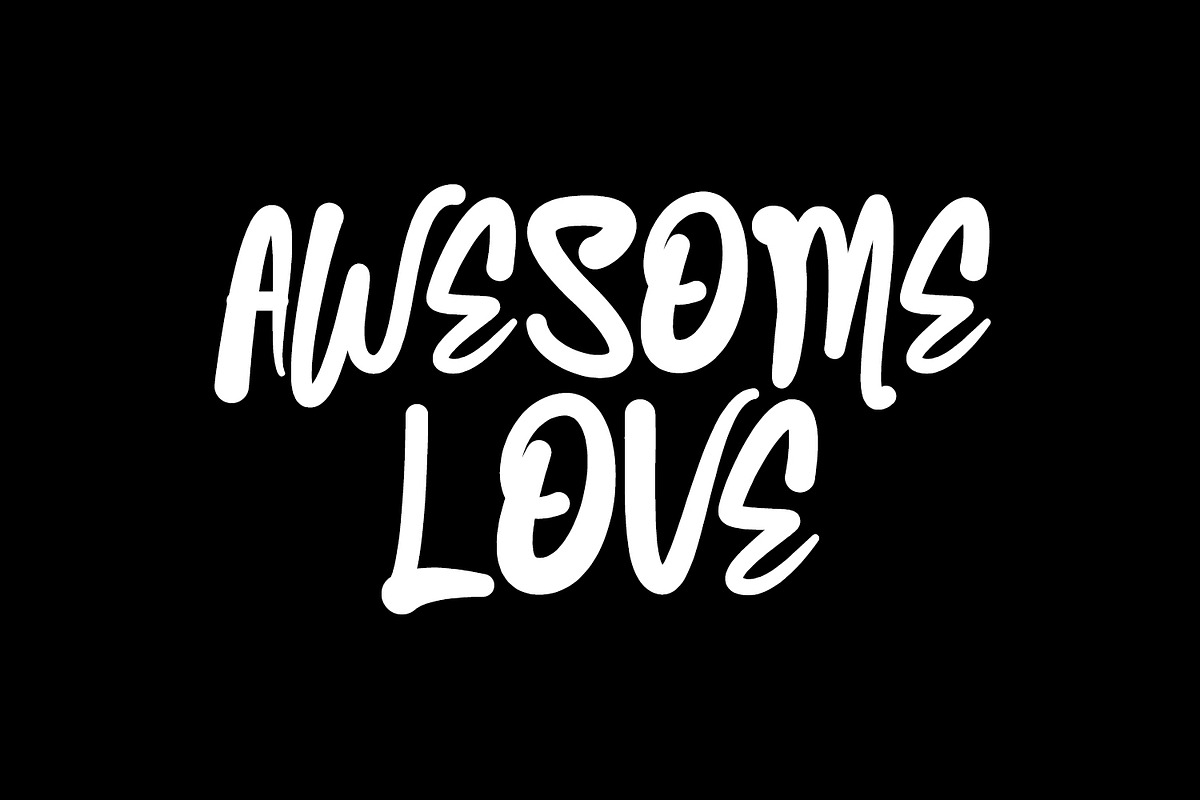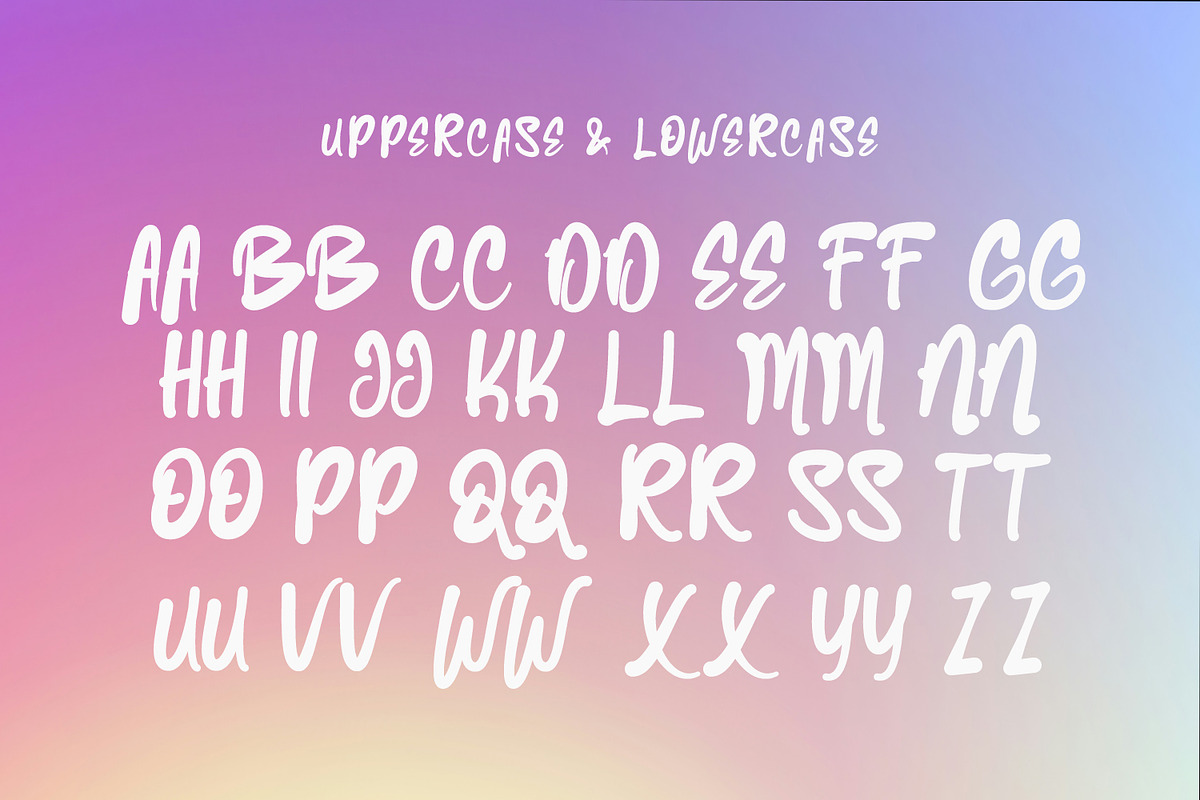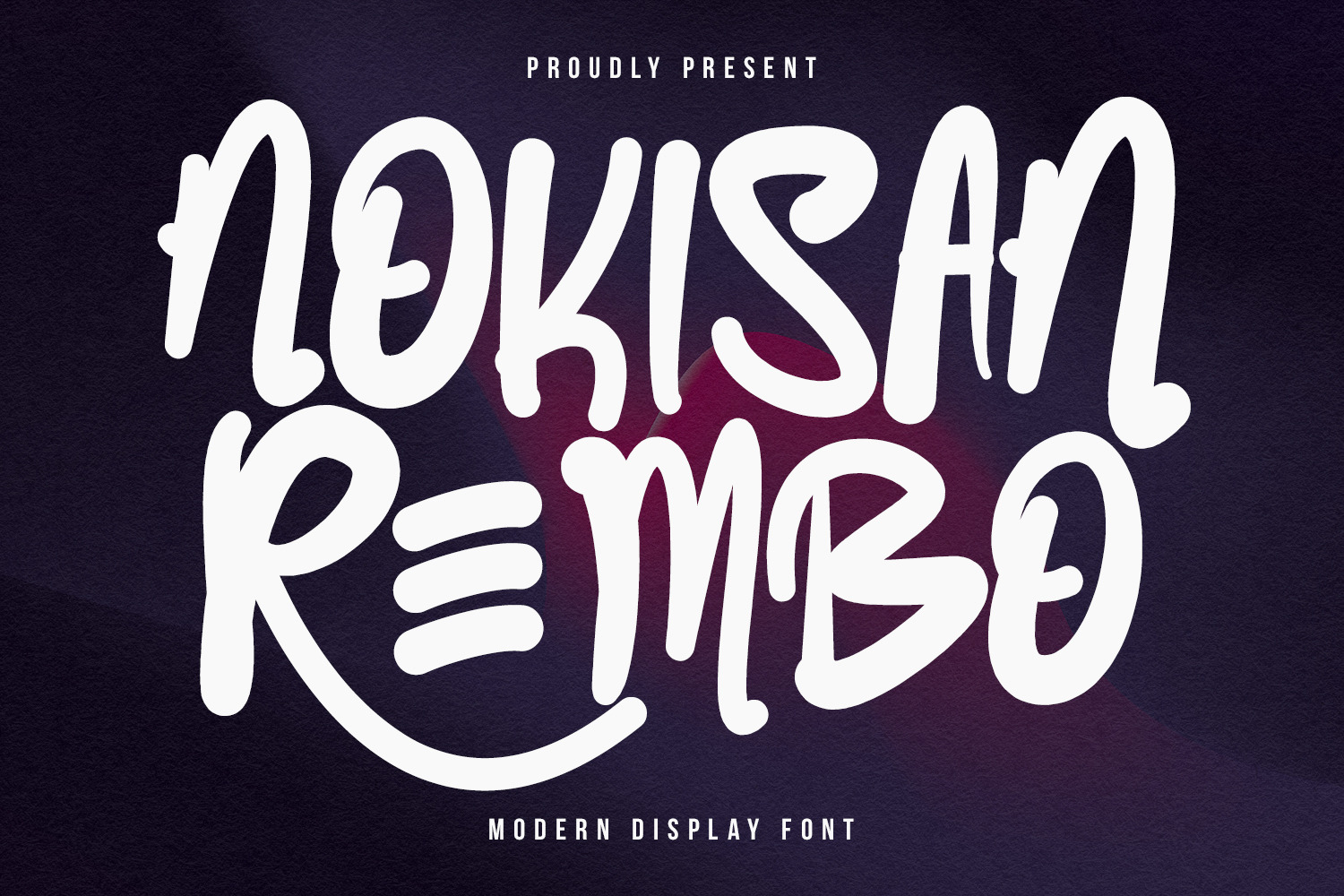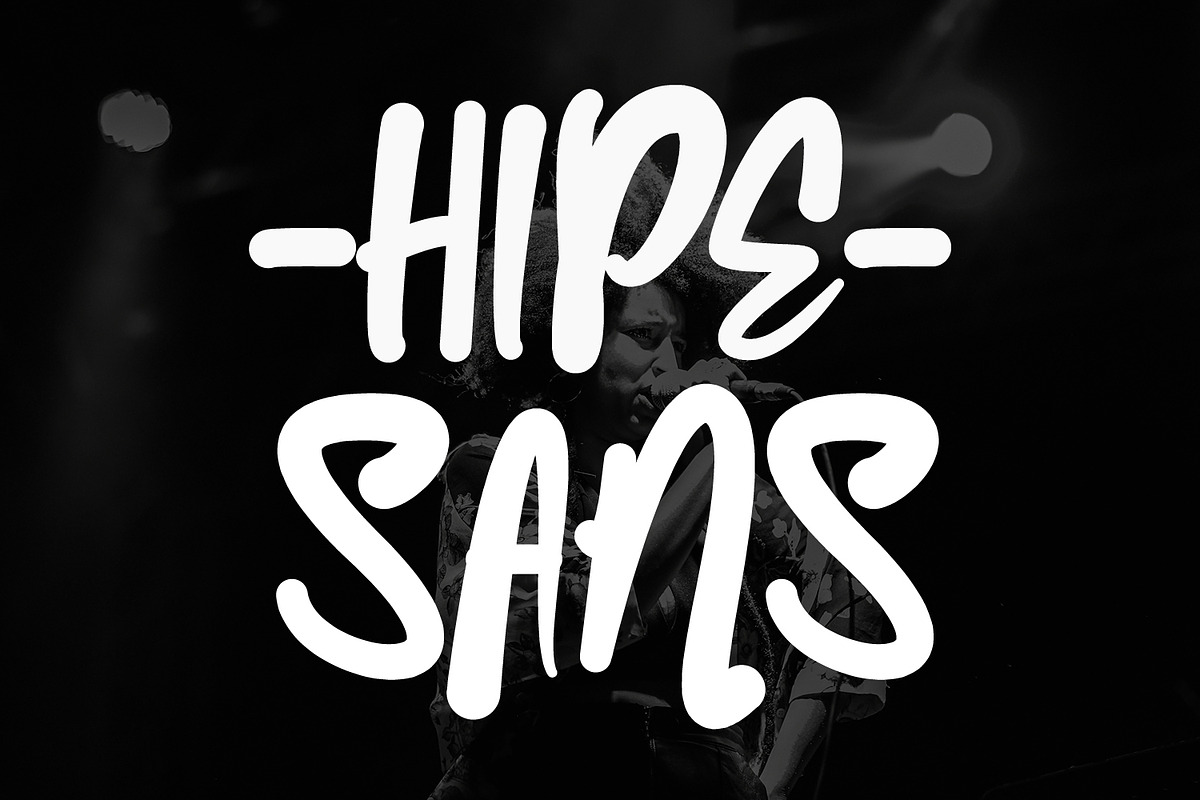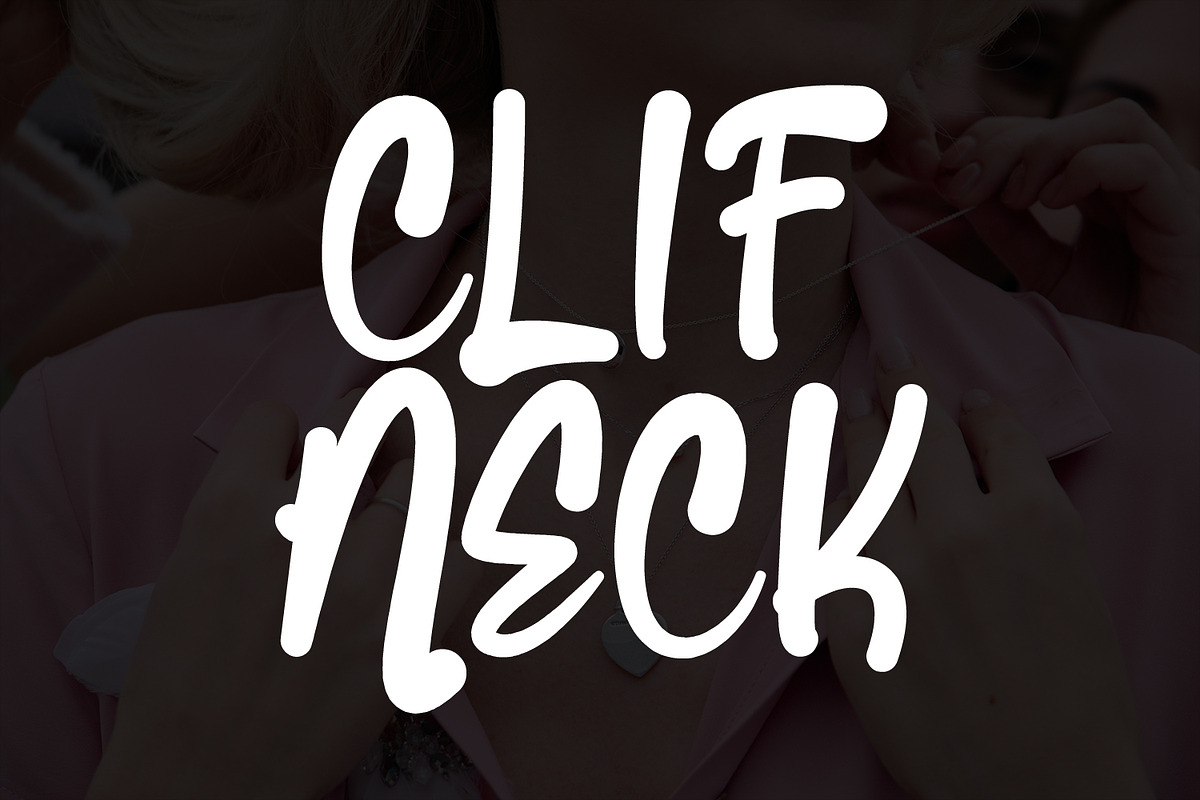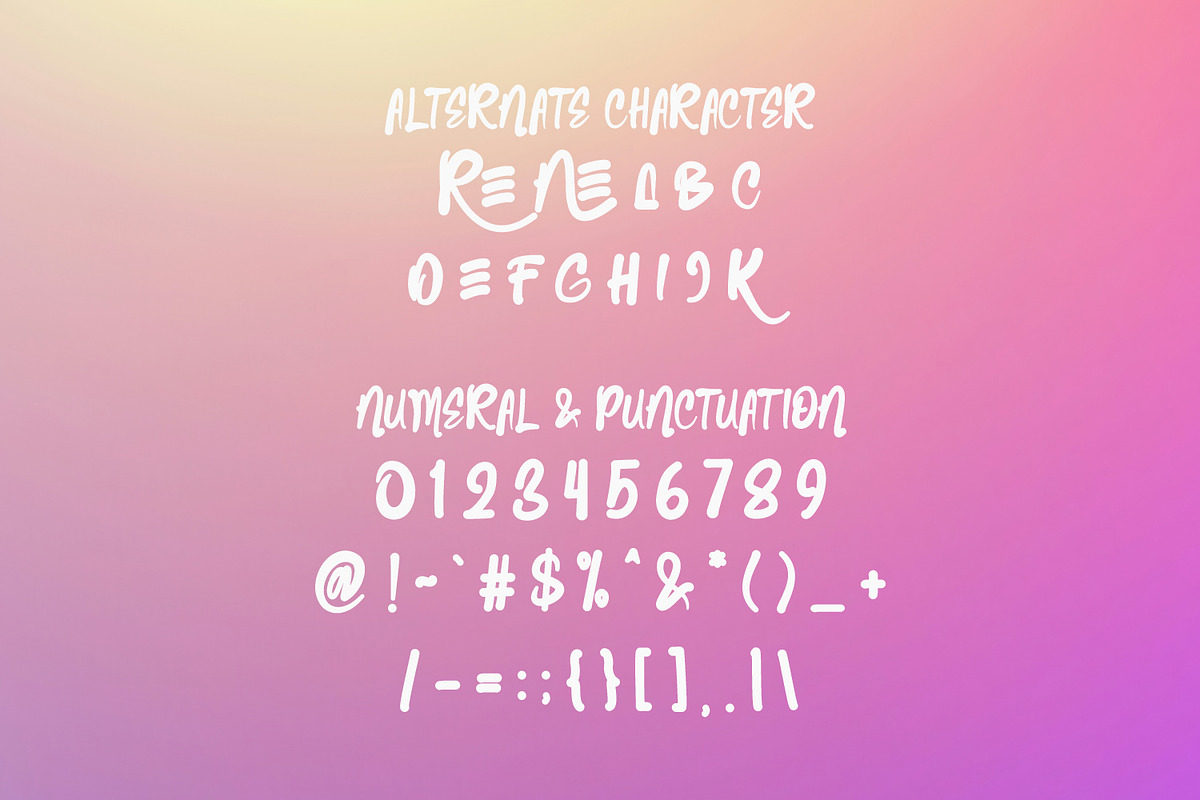
Nokisan Rembo Display Font
Nokisan Rembo display font. With medium soft stroke, fun character with a bit of ligatures and alternates. To give you an extra creative work. Nokisan Rembo display font support multilingual more than 100+ language. This font is good for logo design, Social media, Movie Titles, Books Titles, a short text even a long text letter and good for your secondary text font with script or serif. Make a stunning work with Nokisan Rembo display font.